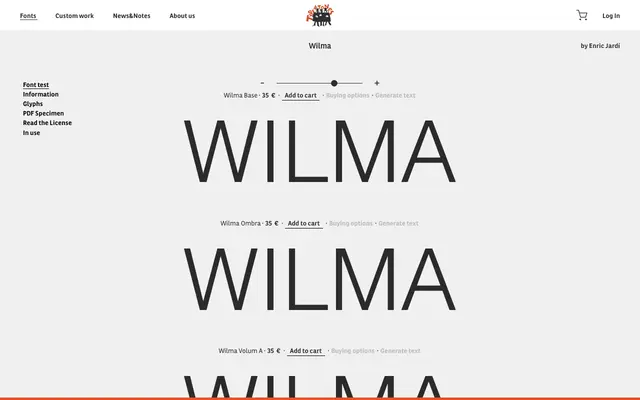
Wilma
Type-ø-tones · Enric Jardí
A layered display family by Enric Jardí offering nineteen variants built around shadow, volume, patterned fill and interior cut styles for chromatic typesetting.
Wilma is designed by Enric Jardí and released through Type-ø-tones as a system of nineteen complementary display fonts. The family is structured around a Base layer with companions for shadow (Ombra), volumetric shading (Volum A–C), patterned fills (Motiu A–C), open pattern cuts (Motiu Forat A–C), dense fills (Farcit A–B) and interior treatments (Interior A–C and Interior Forat A–C). The layering system allows designers to mix and match variants for richly textured, chromatic headline work.
Wilma is a layered display family with multiple decorative variants including shadow, volume, pattern, fill and interior cuts, placing it firmly in the decorative display category rather than any conventional text classification.